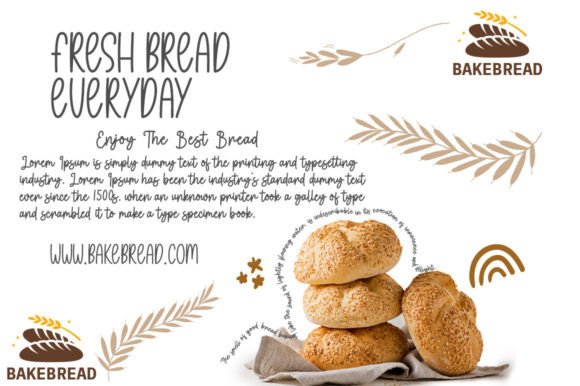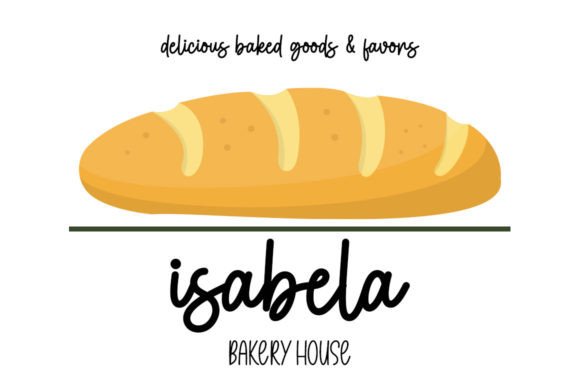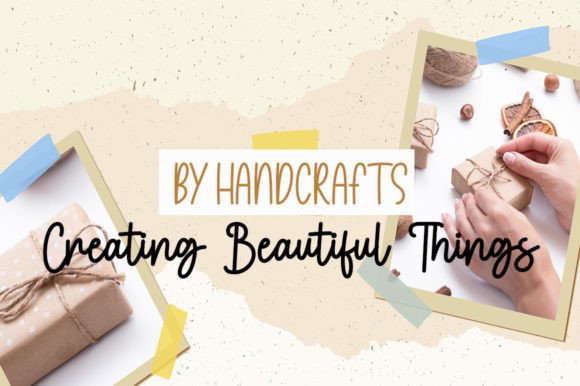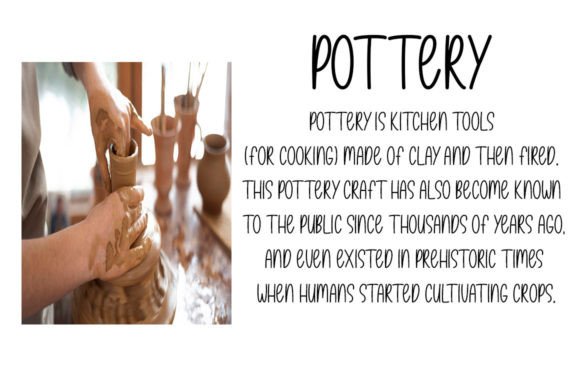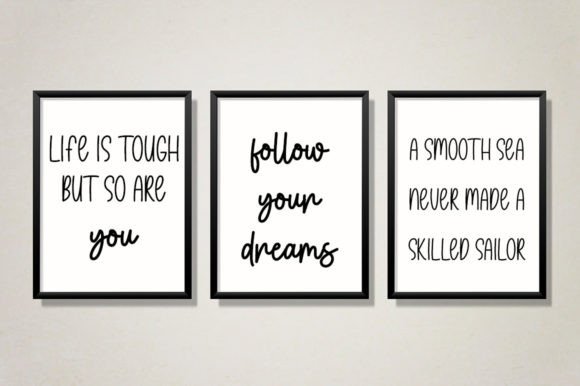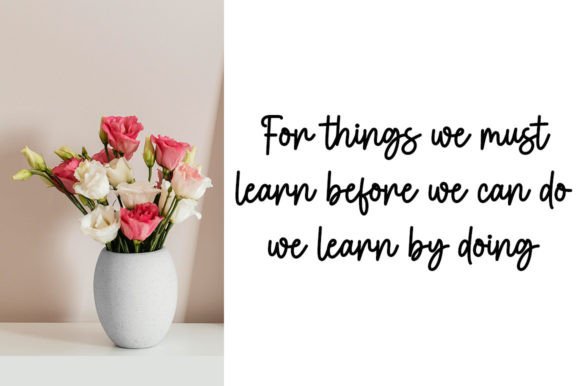
Introduction to Fresh Baked Font
Do you remember the feeling of holding a handmade card your child made for you? The love and effort put into every scribble, every color, and every imperfectly placed sticker. For designers, that feeling is what we strive to replicate in our creative projects, but with a professional touch, of course. And that’s where the Fresh Baked Font comes in – a beautiful, delicate duo font that’s sure to add a romantic touch to any design.
Whether you’re working on a greeting card, a wedding invitation, or a social media post, the Fresh Baked Font is a valuable resource for designers looking to add a personal and high-quality feel to their work. With its transparent background and free download option, you can experiment with this versatile font without any limitations.
- Perfect for use in logos, branding materials, and other design elements where a unique and high-quality font is required.
Honest Review: Fresh Baked Font
- ✨ High-quality design: The font is clean, modern, and visually appealing.
- ✨ Versatility: Fresh Baked Font comes in various styles, making it suitable for a wide range of creative projects.
- ✨ Transparent background: The font’s transparent background makes it easy to work with, allowing for seamless integration into any design.
- ⚠️ Limited character set: The font’s character set is relatively small, which may limit its use in certain design scenarios.
Overall impression:
While Fresh Baked Font has its limitations, its high-quality design and versatility make it a valuable addition to any designer’s arsenal. If you’re looking for a free font to enhance your creative project, Fresh Baked Font is definitely worth considering.
Tips for Getting the Most Out of Fresh Baked Font
Use the font with a transparent background to create a seamless design. Experiment with different font sizes and styles to add depth and visual interest to your design. Use the font in combination with other design resources to create a unique and engaging visual identity.
Common Use Cases for Fresh Baked Font
The Fresh Baked Font is suitable for a variety of creative projects, including logos, branding materials, and marketing materials. Use the font to add a touch of sophistication and elegance to your designs.